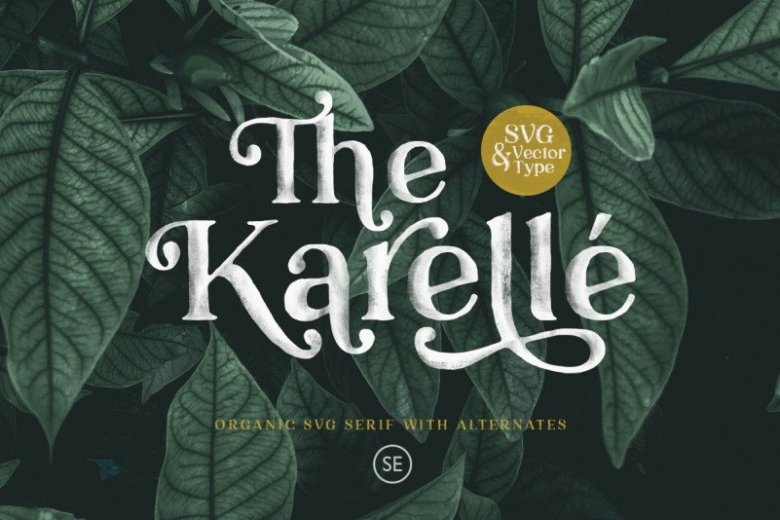
Karelle Serif Font Free
Karelle Serif Font with Modern Elegant Style this is perfect for branding, logos, invitation, masterheads and more. It’s designed and shared by sartstudio. This font is SVG Font with natural feels. Comes with a new format of fonts (SVG) and also with a regular one (OTF).
This unique font also included a bunch of alternates. Number, symbol, and another punctuation also included in this fonts. Support multilingual and already PUA encoded! Let this font make your project even more raw and natural!